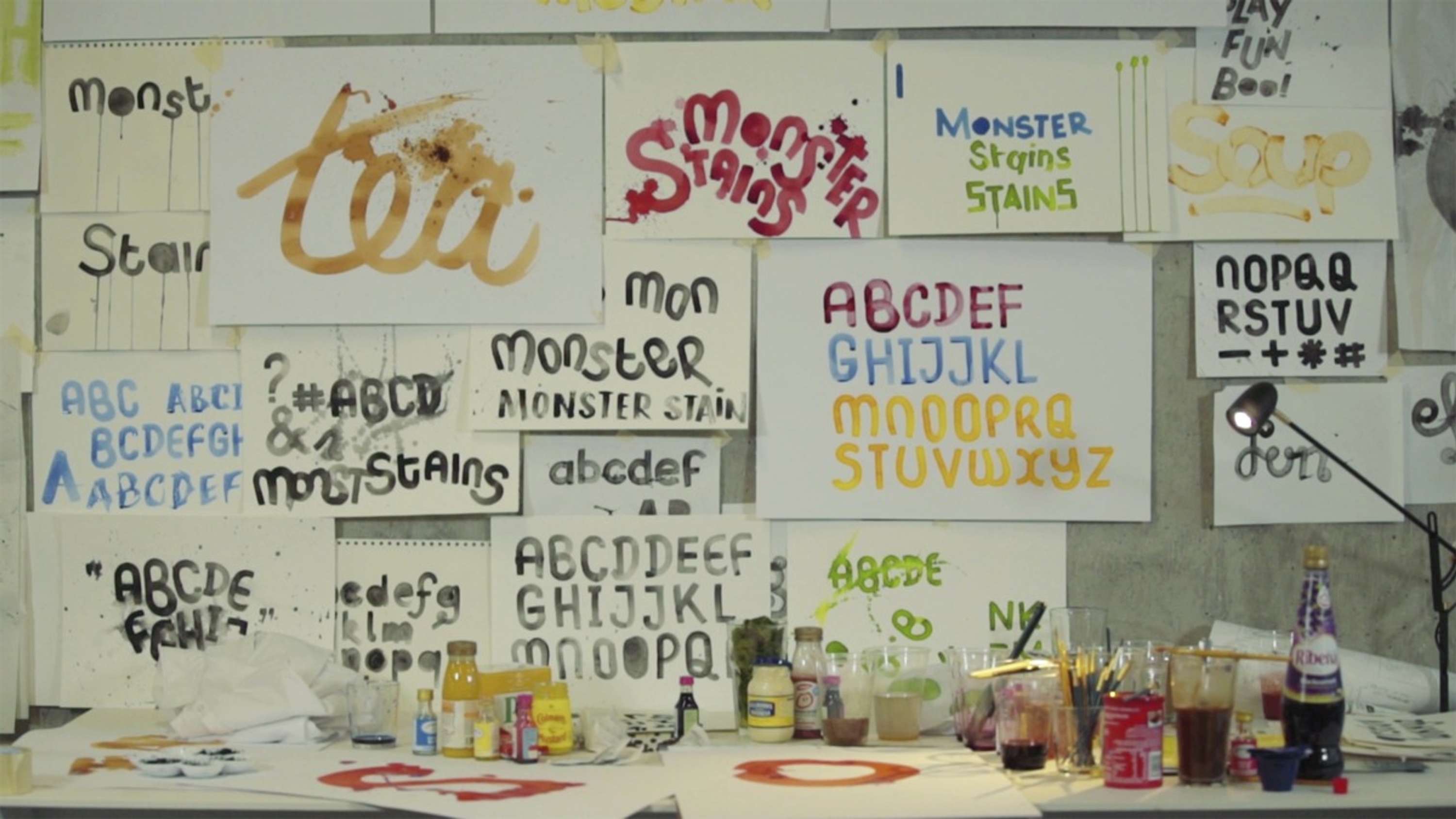
Grotesk Stain Typeface
Grotesk Stain. A typeface made entirely from stains. I painted with a palette of tea, strawberries, spinach, cordial, gravy. The typeface was used in an online film for Persil.